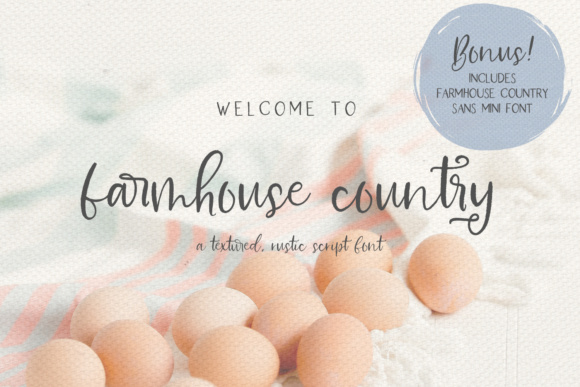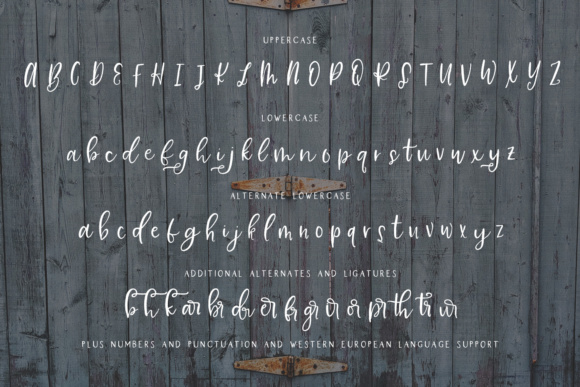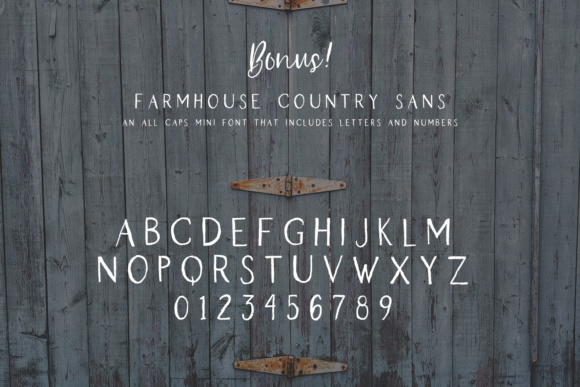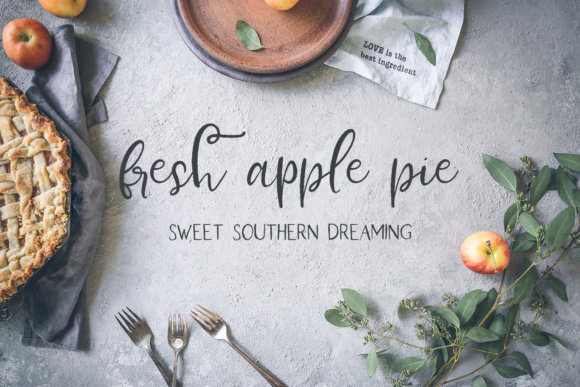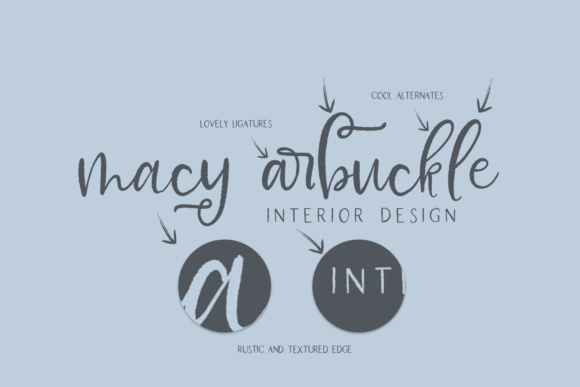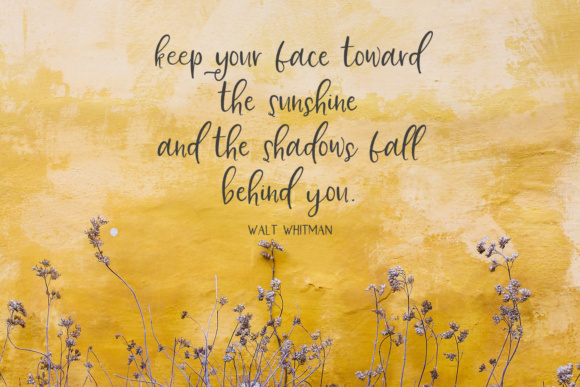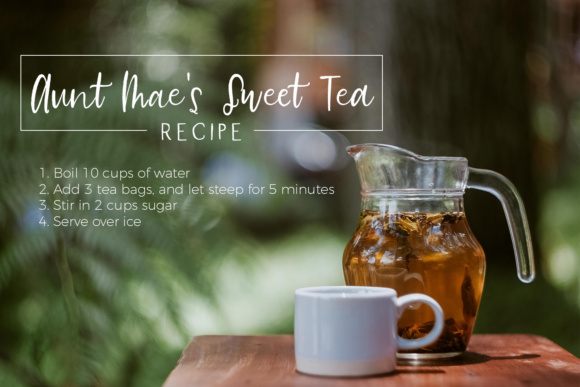
About Farmhouse Country Font
Welcome to Farmhouse Country, a stunning textured font duo sure to be perfect for all of your shabby chic font needs.
Farmhouse Country Script is a robust, easy to read, hand-lettered font with a lovely textured edge — just enough rustic charm! Farmhouse Country features a **full second set** of lowercase letters for diversity and making your project look like real hand-lettering! In addition, there are also some super sweet ligatures programmed in:
Pair Farmhouse Country with its all caps farmhand, Farmhouse Country Sans — it’s a mini font! It includes its all caps characters (programmed as both uppercase + lowercase letters for your convenience), and numbers. It also includes Western European language support.
This duo will look fabulous on your wedding invitation design, your shabby + feminine brand, t-shirts or print design, and more!